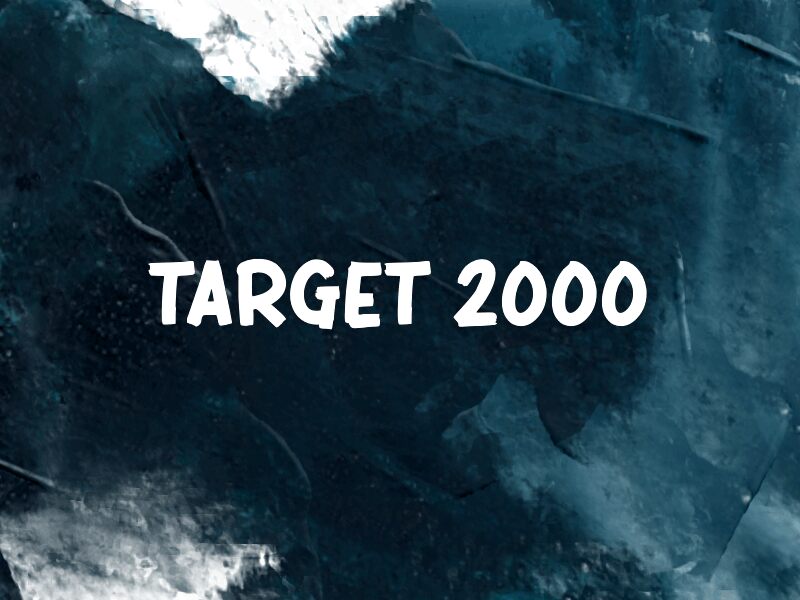
TARGET 2000
Target 2000 font by wep is a free brush font that feels like it was scrawled with a fat marker on glossy poster board. Its chunky, rounded strokes and slightly bouncy rhythm give it a playful, hand-done energy while still staying bold and easy to read at a glance. The letters sit close and solid, creating inky, unified word shapes that instantly grab attention without looking messy or chaotic.
Using Target 2000, you can give kids’ branding, party invitations, comic titles, snack packaging, YouTube thumbnails, and casual event flyers a fun, approachable voice. This free font shines when set large and loud, where its soft edges and dense black strokes can really punch. For supporting text, pair it with a simple sans-serif in a lighter weight to keep the message clear while Target 2000 handles the headline personality.